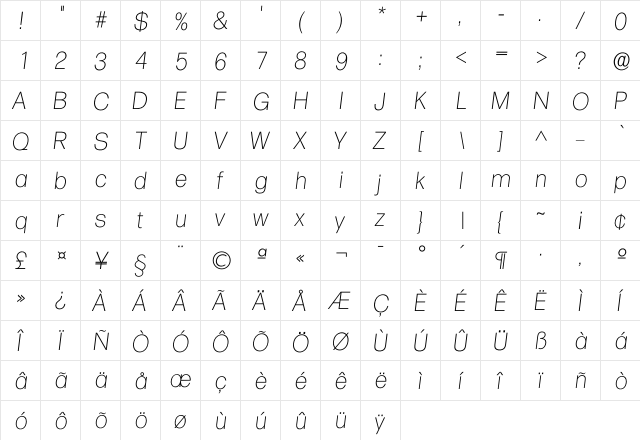
Iformula Xlight
Design Context for Iformula Typeface
Iformula takes a measured approach to typography — its balanced proportions and neutral character make it a reliable workhorse for both digital and print work. Its slender proportions lend an understated elegance to any composition.